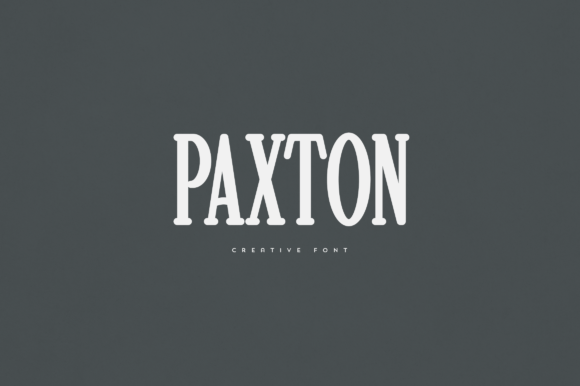
In the vast world of typography, there lies a font of exquisite elegance, a stroke of creative genius that transforms the ordinary into the extraordinary – introducing Paxton Font.
With its sweeping curves and graceful lines, Paxton Font is a display font that dances across your screen, capturing attention and leaving an imprint of sophistication. It is the perfect companion for those seeking a font that transcends the mundane, a font that elevates their designs to new heights of allure.
Picture this: your wedding backdrop, a symphony of elegance, where love's story unfolds amidst a sea of meticulously chosen details. And amidst this tapestry of beauty, Paxton Font emerges as the centerpiece, adding a touch of timeless grace to your vows. Each letter, a brushstroke of artistry, intertwines to create a harmonious melody, guiding your guests through the narrative of your love.
Or perhaps you envision a branding project that exudes sophistication and charm. Paxton Font steps onto the stage, effortlessly transforming your logo into a symbol of timeless elegance. Its versatile nature allows it to adapt seamlessly to any industry, from fashion to cosmetics, from hospitality to technology. With Paxton Font as your ally, your brand identity becomes a magnet for attention, a beacon of style that draws customers in and leaves them captivated.
Allow Paxton Font to grace your home-ware designs, lending a touch of understated luxury to every piece. Envision cushions adorned with intricate patterns, their messages of love and comfort woven into their very fabric. Picture kitchenware that whispers tales of culinary adventures, each utensil a testament to the artistry of design. With Paxton Font, your home transforms into an oasis of elegance, a sanctuary where beauty reigns supreme.
Headlines and plain text alike are elevated to new heights when adorned with Paxton Font. Its refined presence commands attention, effortlessly drawing the eye to your words, whether they adorn a magazine cover or dance across a social media post. Paxton Font is the ultimate storyteller, weaving words into a tapestry of visual delight, capturing hearts and minds with its timeless charm.
Let Paxton Font be your secret weapon in the battle for design dominance. With its innate ability to transform the ordinary into the extraordinary, it effortlessly elevates your projects, leaving an indelible mark of sophistication and allure.